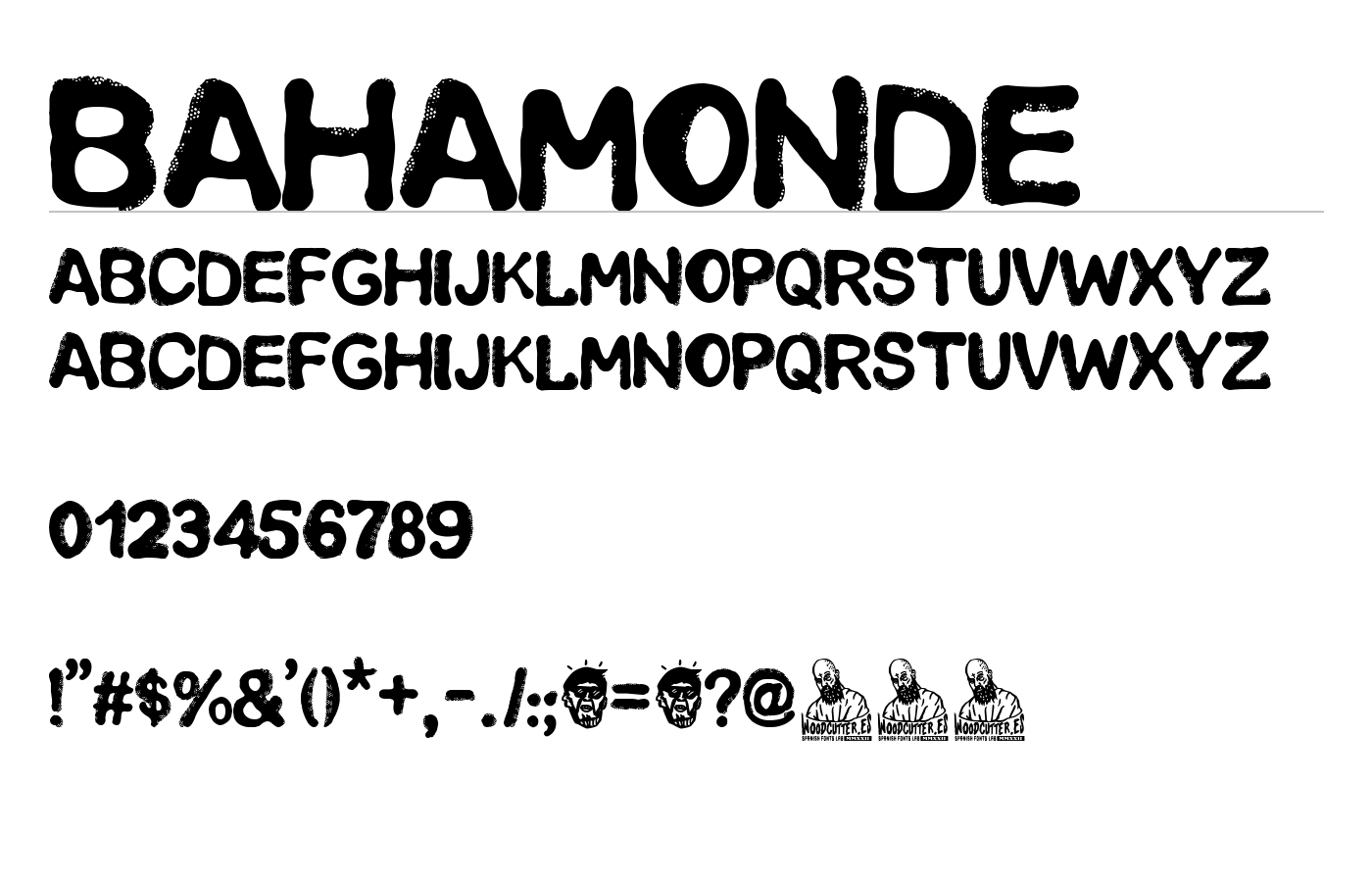
Bahamonde is a bold, playful sans serif font with a hand-drawn, textured look that gives it a casual yet dynamic character. Its rounded, chunky letterforms and uneven stroke edges create an informal, friendly vibe perfect for eye-catching headlines, posters, or creative branding where a fun, approachable style is desired. This font works well in projects seeking a lively, artistic touch that stands out with unique personality and warmth.
Bahamonde Font
About Bahamonde Font